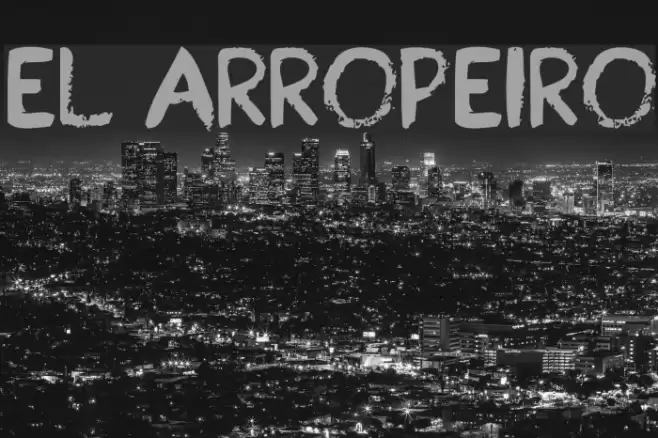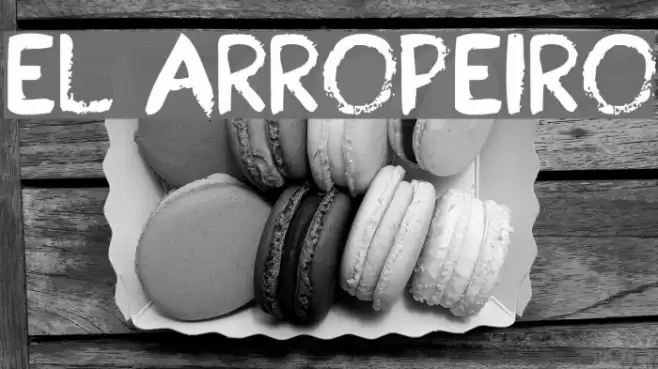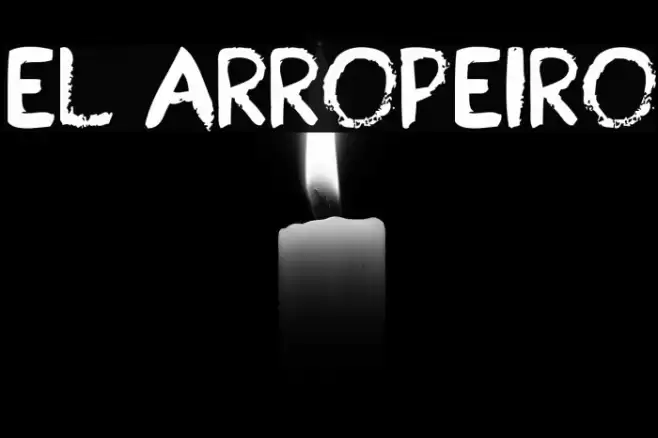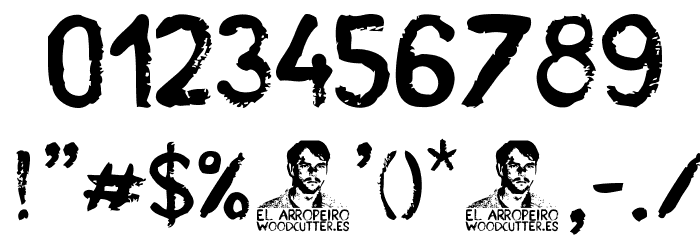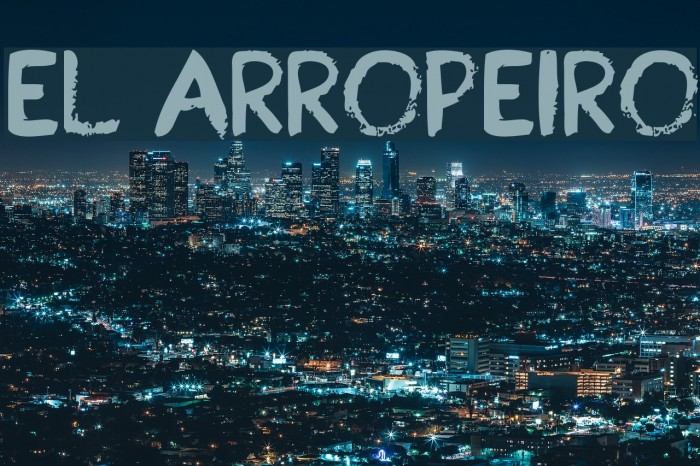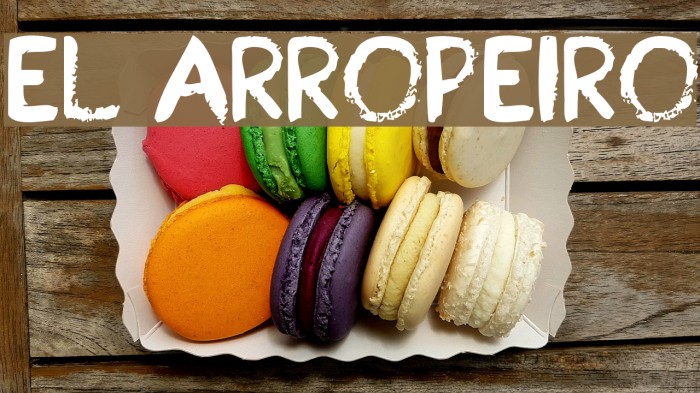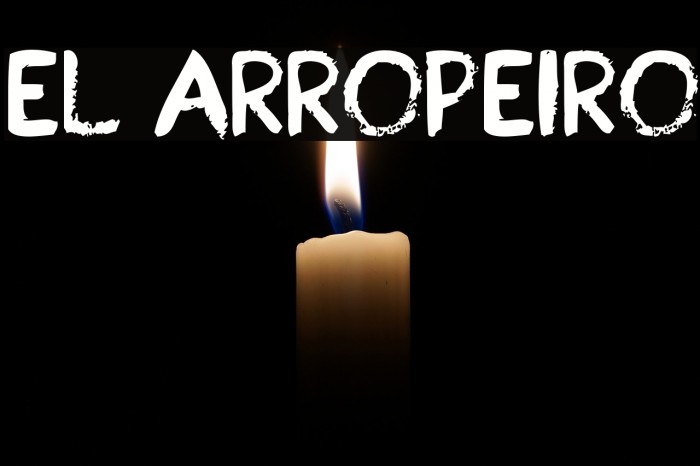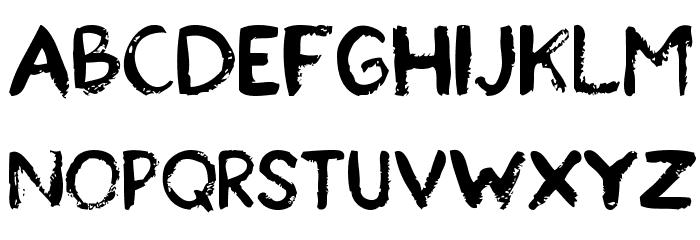
El Arropeiro Font
El Arropeiro Description
This font features a bold, distressed style with a rugged, hand-painted appearance. The characters have a rough texture, giving them an organic and dynamic feel. The uppercase and lowercase letters maintain a consistent style, with slightly irregular edges that add to the font's unique character. The numbers and special characters follow the same aesthetic, making the font versatile for various creative applications. Its bold nature ensures high visibility, making it suitable for eye-catching designs.
A bold, distressed font with a hand-painted, rugged appearance from Distorted Eroded fonts.
- Proposed Projects: Ideal for posters, album covers, branding projects, and any design requiring a bold, artistic touch.